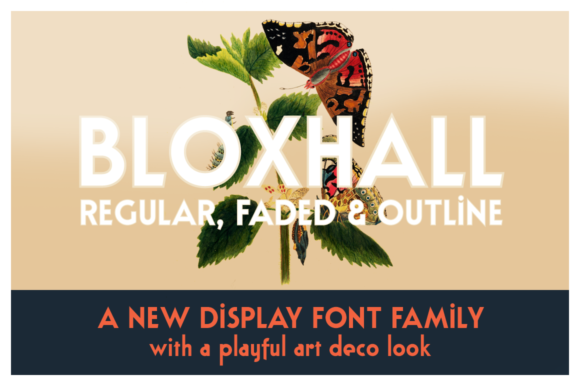
Discover the Bold Personality of Bloxhall Font
Have you ever been brainstorming a creative project, and suddenly, the perfect font pops into your mind? For designers, this moment is pure magic. It’s the spark that sets the tone for an entire design, and it can make all the difference between a good and great project. For me, that moment came when I stumbled upon the Bloxhall Font. Its bold, retro style was exactly what I needed to bring a design to life.
The Bloxhall Font is a versatile display font that’s perfect for quotes, ads, logos, and branding. Its cool, bold personality adds a touch of nostalgia to any design, making it a valuable asset for designers looking to create unique and eye-catching visuals.
Bloxhall Font Key Features
- Font Family: Bloxhall Font is a sans-serif font family designed for digital use. It is available in multiple weights, ranging from Light to Bold.
- Font Size and Resolution: The font is designed to be highly legible at small font sizes, making it ideal for digital applications such as mobile devices, web design, and print media with high resolutions.
- Unique Characteristics: Bloxhall Font features a unique geometric design with clean lines and a modern aesthetic, making it suitable for a wide range of applications, including branding, advertising, and editorial content.
- Font Metrics: The font has a x-height of 520, an ascender height of 720, and a descender height of 400, making it highly customizable for various font sizes and line heights.
- Language Support: Bloxhall Font supports a wide range of languages, including Latin, Cyrillic, and Greek scripts, making it a versatile choice for global branding and content creation.
Bloxhall Font Review
I’ve had the chance to work with the Bloxhall Font, and I must say it’s a decent addition to any designer’s toolkit. ✨ The font’s versatility is one of its strongest suits – it’s suitable for both body text and headings, and it looks great in a variety of contexts.
- ✨ Easy to read: The font’s letterforms are clean and clear, making it a great choice for body text.
- ✨ Versatile: As I mentioned earlier, Bloxhall Font works well in a variety of contexts, from headings to body text.
- ✨ Friendly: The font’s overall aesthetic is friendly and approachable, making it a great choice for designs that need to feel welcoming.
However, there are a few limitations:
- ⚠️ Limited expressiveness: While the font is easy to read, it may not be the best choice for designs that require a lot of expressiveness or flair.
- ⚠️ Not ideal for display text: While the font works well in body text, it may not be the best choice for display text or titles, where a bolder or more dramatic font may be more effective.
Overall, I’d say the Bloxhall Font is a solid choice for designers who need a clean and versatile font. While it may not be the most exciting or expressive option, it gets the job done, and it’s a great addition to any designer’s toolkit.
Getting the Most Out of Bloxhall Font
To get the most out of the Bloxhall font, use it in combination with bold or italic styles to create visual hierarchy and emphasis. You can also use it in conjunction with other fonts to create a unique and stylish typography.
The Bloxhall font is suitable for use in a variety of designs, including:
- Marketing materials, such as brochures and flyers
- Print design and publishing
Alternatives to Bloxhall Font
Great Vibes is a modern, elegant script font that is perfect for titles, headings, and any other text where a touch of sophistication is needed. It is ideal for creative and artistic projects, such as wedding invitations, posters, and social media graphics.
Compared to Bloxhall Font, Great Vibes is more elegant and refined, making it suitable for a wider range of applications. While Bloxhall Font is more playful and casual, Great Vibes is more formal and sophisticated.